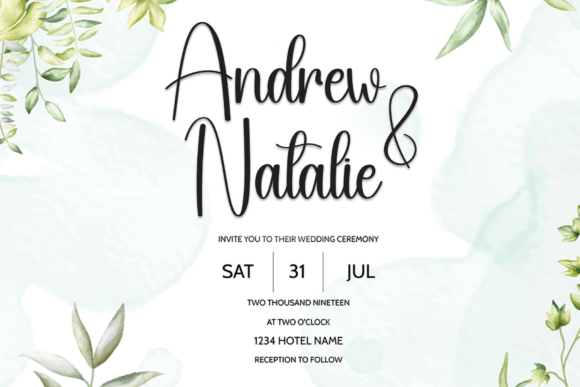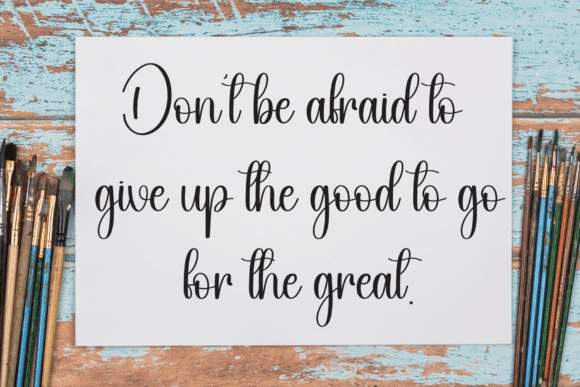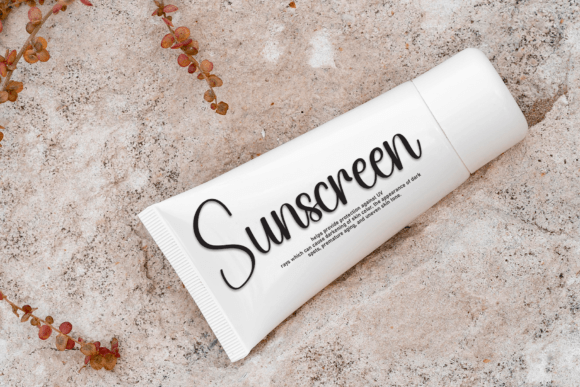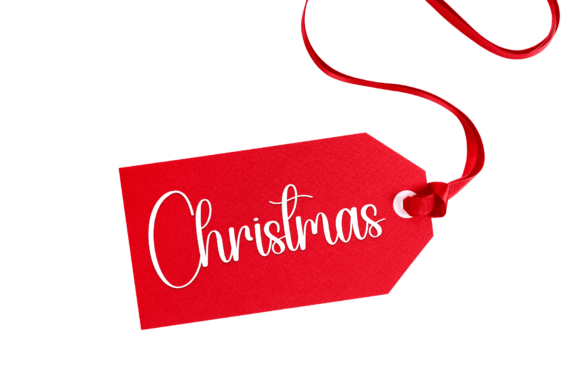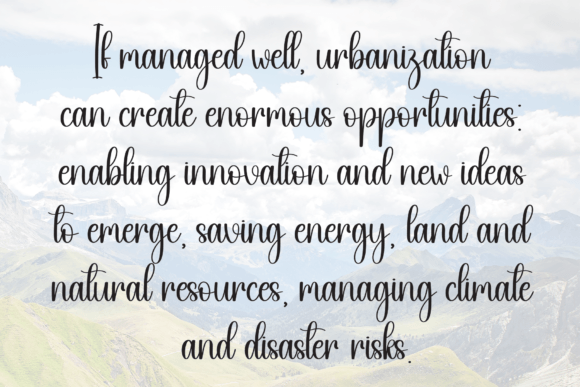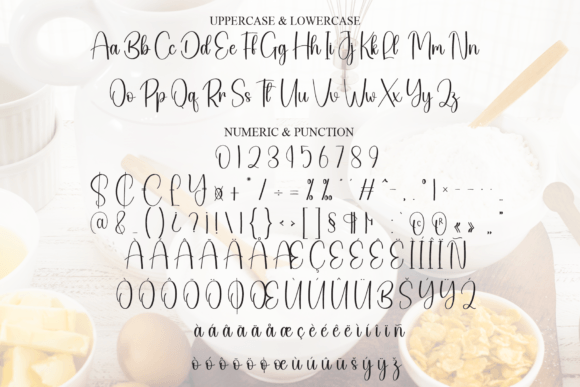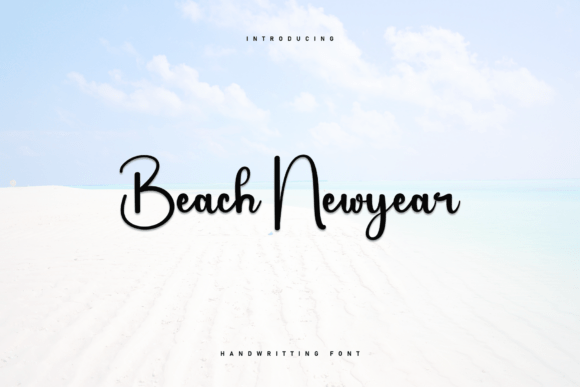
The Perfect Touch of Personality: Introducing the Butter Font
Have you ever sat at your desk, staring at a blank sheet of paper, trying to find the right words to express your feelings? For designers, this moment is all too familiar. It’s the moment when creativity strikes, and the right font can make all the difference. That’s why we’re excited to introduce you to the Butter Font – a handwritten font that’s as warm and inviting as a sunny day.
With its smooth, flowing letters, the Butter Font adds a personal touch to any text, making it perfect for invitations, notes, and creative projects. Whether you’re designing a wedding invitation or a children’s book, this font is sure to bring a smile to your audience’s face. And for designers, it’s a valuable tool that can elevate your work and make it stand out from the crowd.
Butter Font Key Features
- Unique Characteristics: The Butter Font features a distinctive, rounded design with a high x-height, making it highly legible and suitable for body text and headings.
- Language Support: The font includes comprehensive language support, covering over 200 languages, including Latin, Cyrillic, and Greek scripts.
- Font Style and Weight: The Butter Font is available in 8 font weights (Thin, Extra Light, Light, Regular, Medium, Semi Bold, Bold, and Black) and 3 font styles (Regular, Italic, and Bold Italic), providing flexibility for various design applications.
- Font Metrics: The font has been carefully crafted with precise font metrics, ensuring optimal spacing and alignment for a professional and polished appearance.
Butter Font Review
Overall, I think the Butter Font has a lot going for it. Here are some of the things that work well: ✨
- Unique design: The Butter Font has a distinctive, rounded design that sets it apart from more common fonts.
- Legibility: Despite its rounded edges, the font is surprisingly easy to read, even at smaller sizes.
- Flexibility: The Butter Font comes in a range of weights and styles, making it suitable for a variety of design applications.
However, there are also some limitations to consider: ⚠️
- Limited character set: The Butter Font has a relatively small character set, which may limit its use for certain languages or applications.
- Not ideal for body text: While the Butter Font works well for headlines and titles, it may not be the best choice for body text due to its rounded design.
- Dependence on context: The effectiveness of the Butter Font can vary depending on the context in which it’s used, so it’s essential to test it thoroughly.
Overall, I think the Butter Font is a solid choice for designers who want a unique, eye-catching font. While it may not be suitable for every project, it’s definitely worth considering for the right application.
Tips for Getting the Most Out of Butter Font
Here are some tips to help you get the most out of the Butter Font:
- Use it for headings and titles to create a visually appealing contrast.
- Pair it with a clean and simple background to let the font shine.
The Butter Font is ideal for: